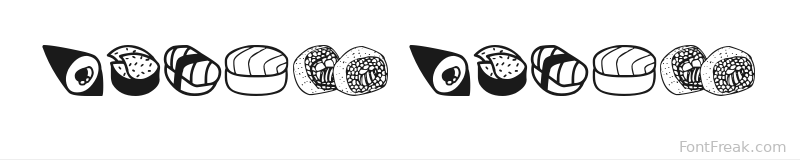
Sushi Sushi
About Sushi Sushi
Sushi Sushi is a playful and unique decorative typeface designed by woodcutter Manero, capturing the essence of fun and creativity. This font is characterized by its whimsical, hand-drawn aesthetic that emulates the delightful shapes of sushi rolls. With a combination of bold strokes and varying weight, each character feels lively and inviting, making it stand out in any design context. The spacing is thoughtfully arranged to ensure readability while maintaining a dynamic appearance.
Ideal for a variety of creative projects, Sushi Sushi is particularly suited for restaurant menus, food blogs, and branding for sushi bars or Asian cuisine restaurants. Its cheerful design can also enhance wedding invitations, especially for couples looking to add a personal touch to their celebration. Additionally, this font can be effectively used in promotional materials, such as flyers or social media graphics, aimed at food enthusiasts and culinary events.
Targeted towards graphic designers, small business owners, and content creators, Sushi Sushi offers a fresh approach to typography. Its distinctive style appeals to those seeking to inject a sense of fun and creativity into their designs. The font's free availability as a freeware license makes it an accessible choice for anyone looking to enhance their visual communication with a unique flair.
What sets the Sushi Sushi font apart is its ability to blend functionality with artistic expression. Not only does it convey the theme of cuisine effectively, but it also captures the playful spirit of dining culture. For anyone looking to bring a touch of whimsy to their projects, the Sushi Sushi font free download is an excellent option that promises to delight and engage any audience.